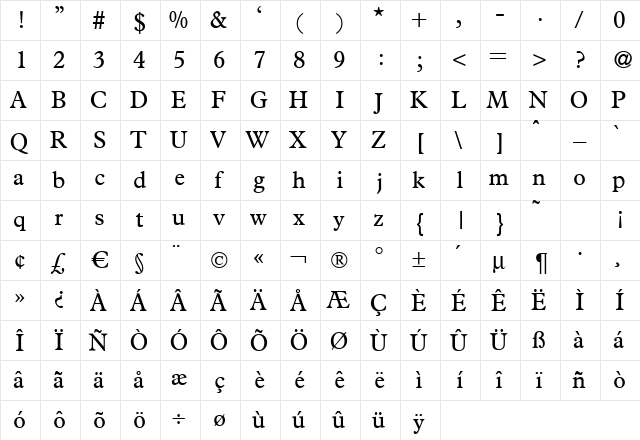
P761-Roman Regular
Design Context for P761-Roman Typeface
P761-Roman is a composed and adaptable typeface that performs quietly and consistently across a wide range of design contexts.